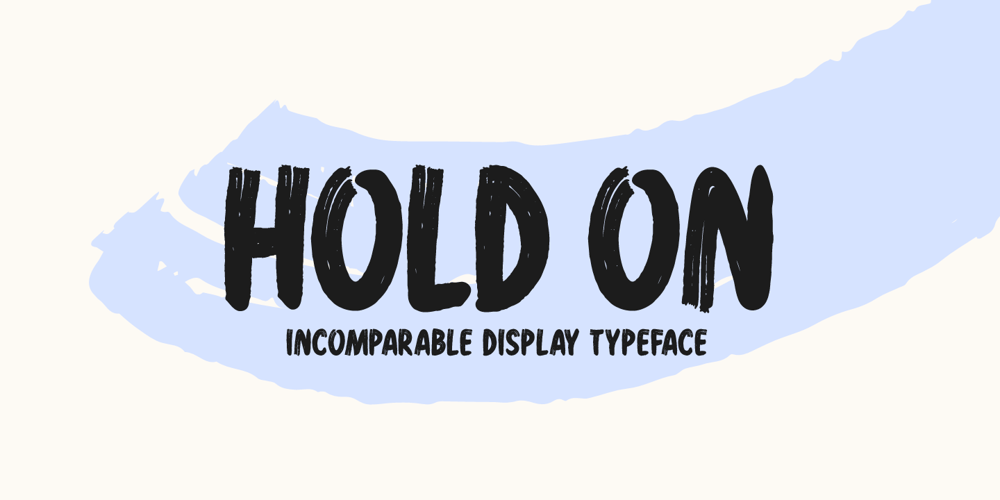
Hold On
Hold On font
Hold On Font Family was designed by Md Shohail Bhuian and published by Seemly Fonts. Hold On contains 1 styles and family package options. Hold on is a chunky and bold display font featuring subtle brush-strokes for a friendly feel. This gorgeous typeface is perfectly suited for stationery, logos, t-shirt, paper, print design, website header, photo frame, flyer, music cover, poster, image slider, and much more!